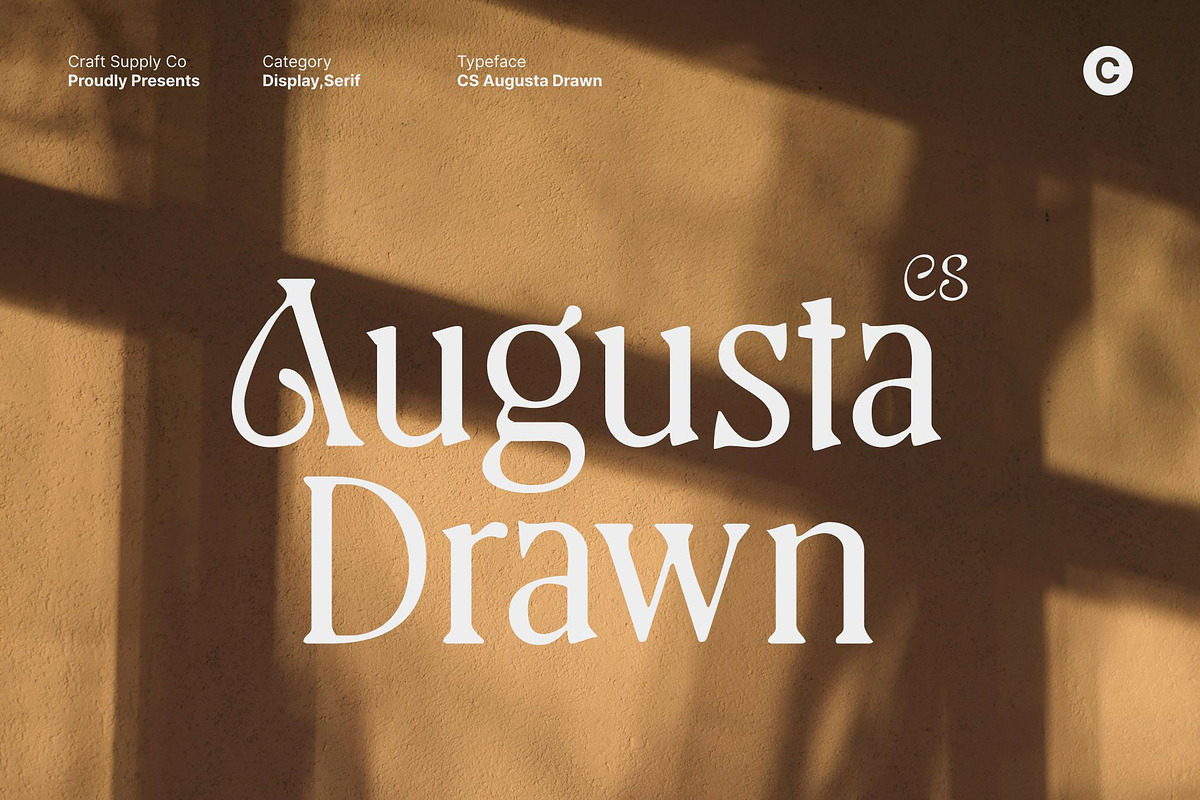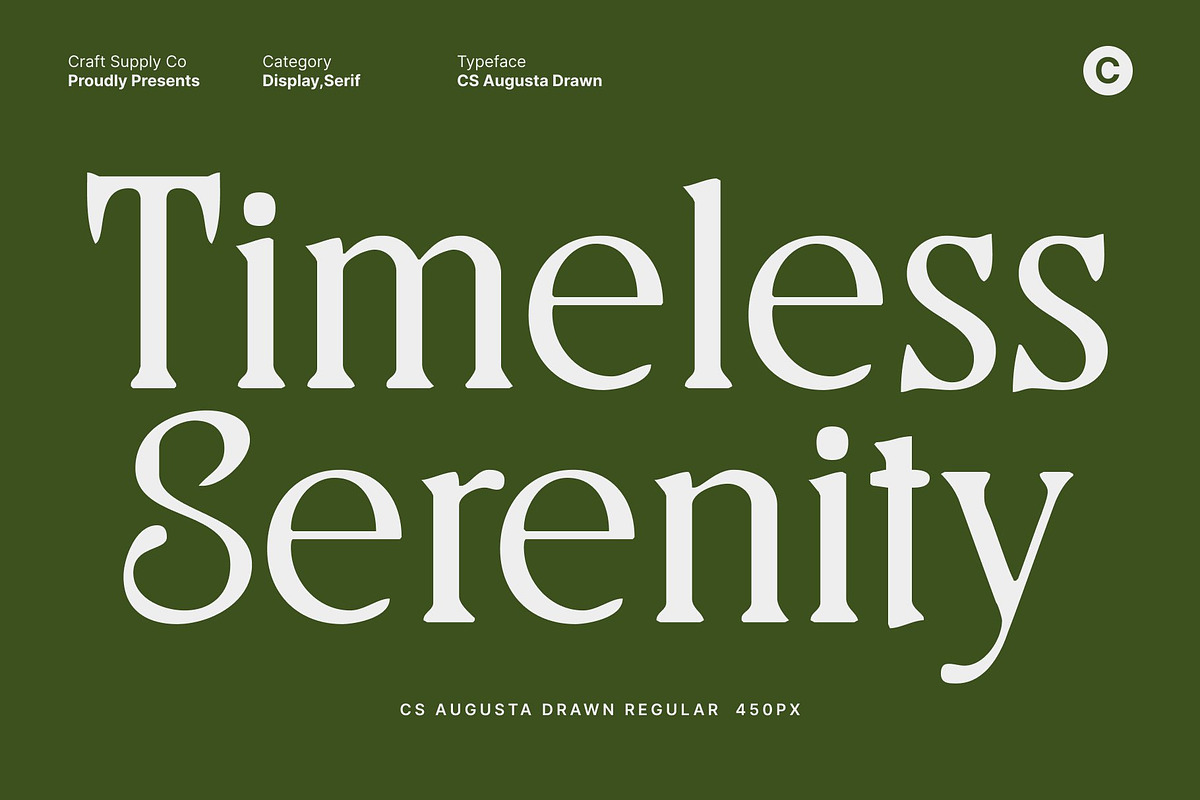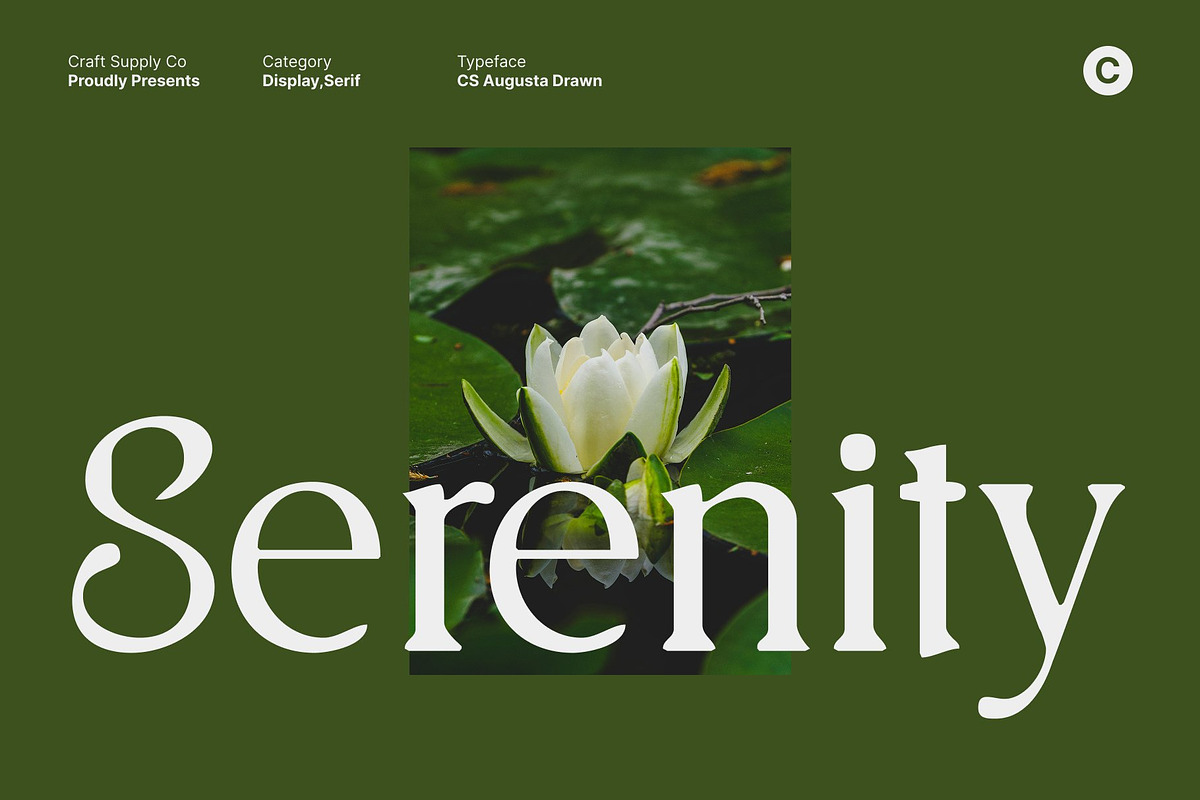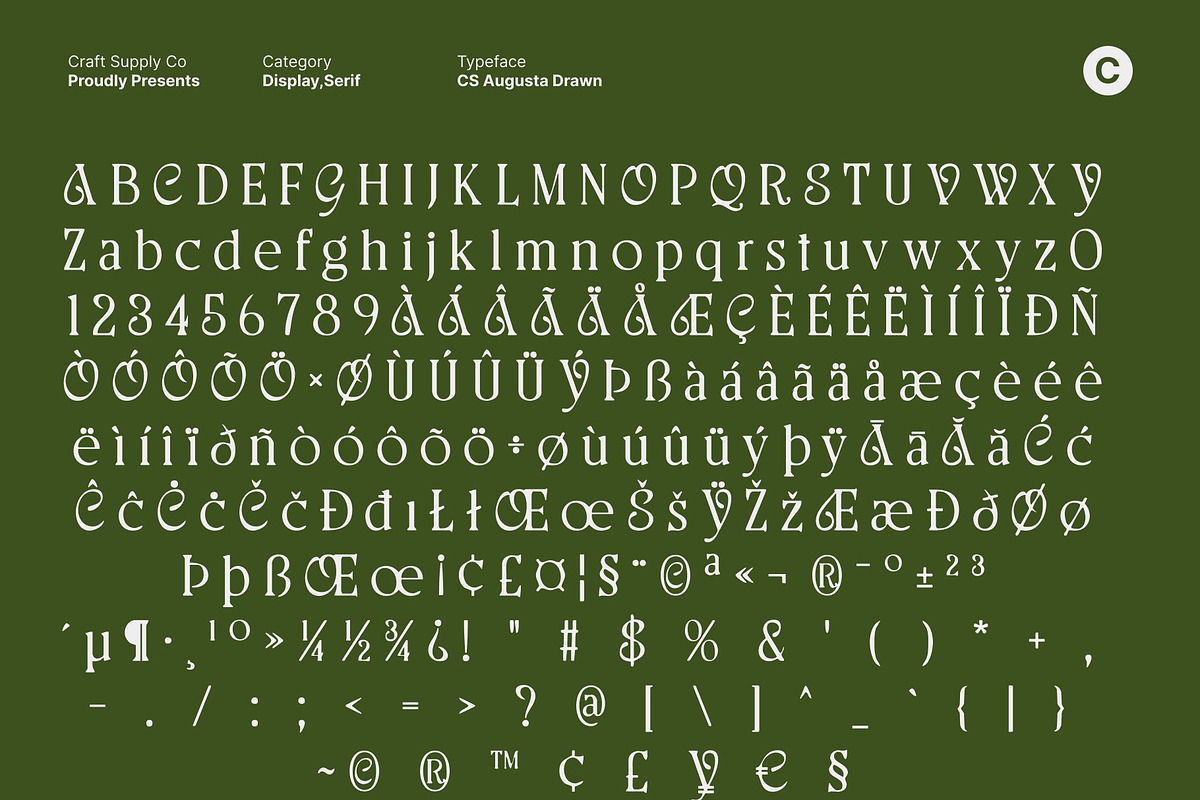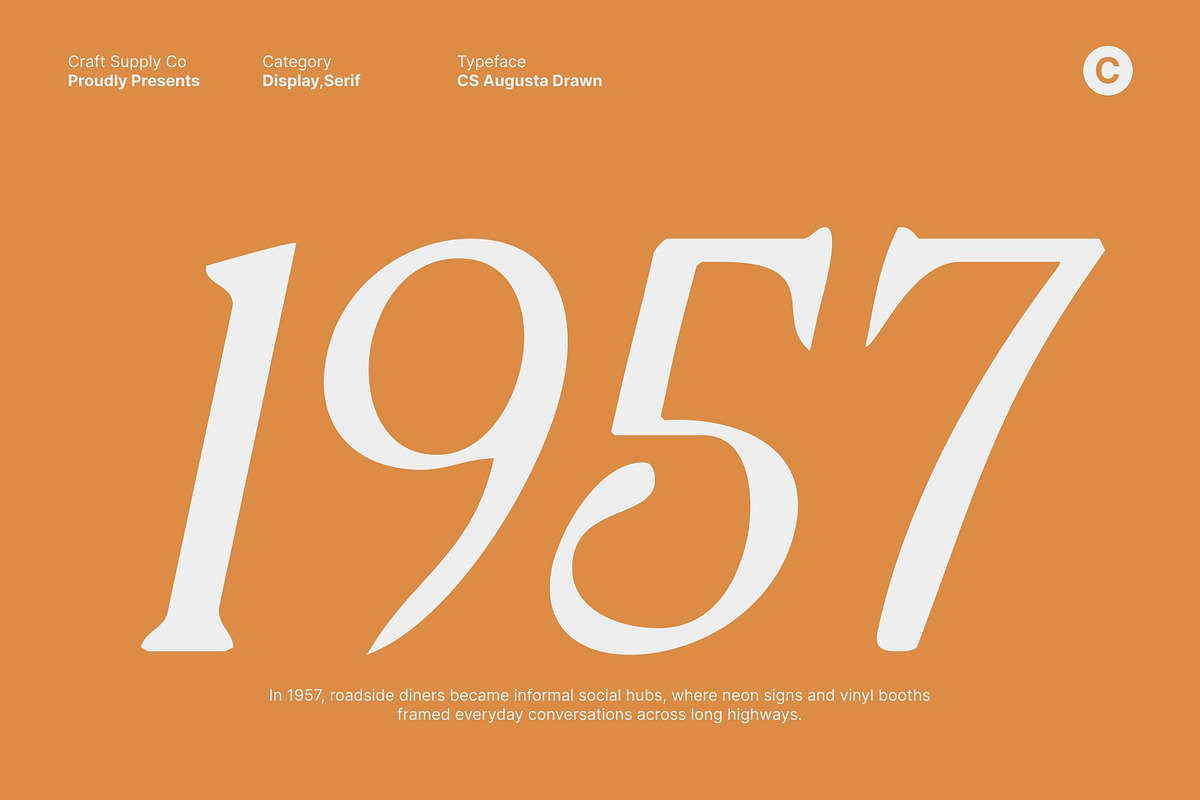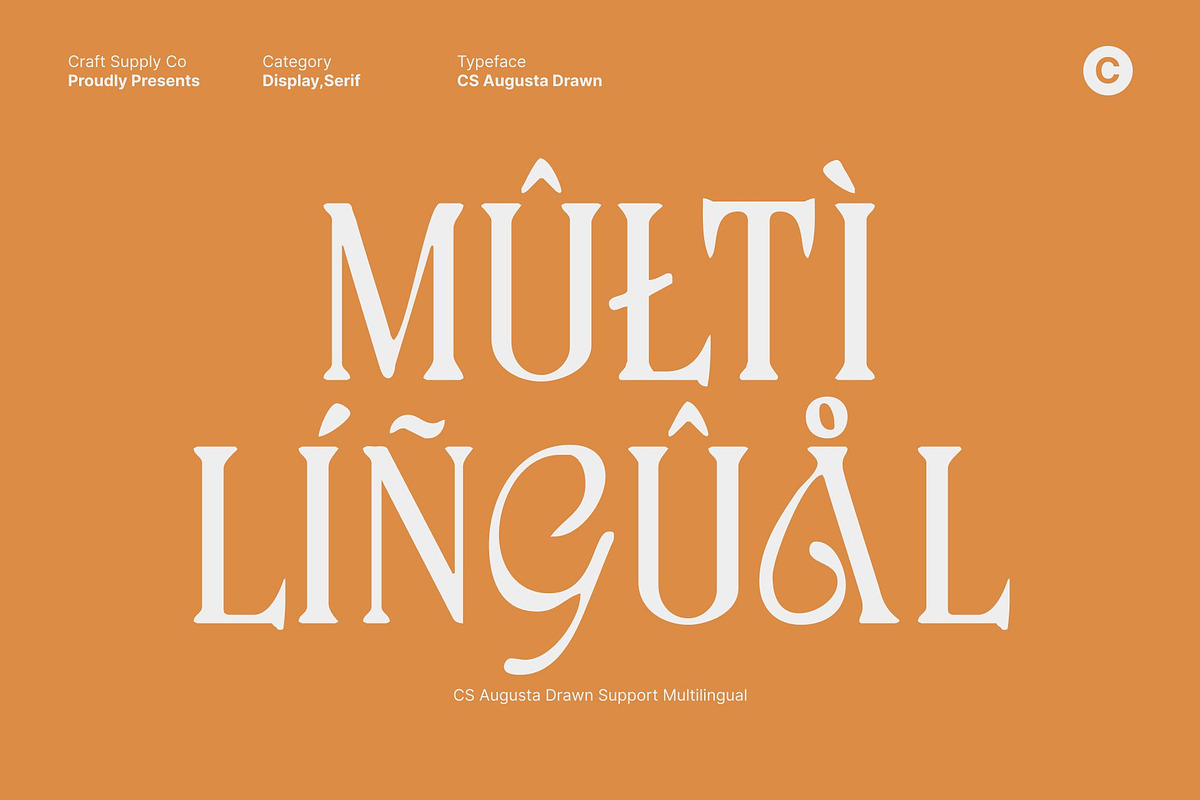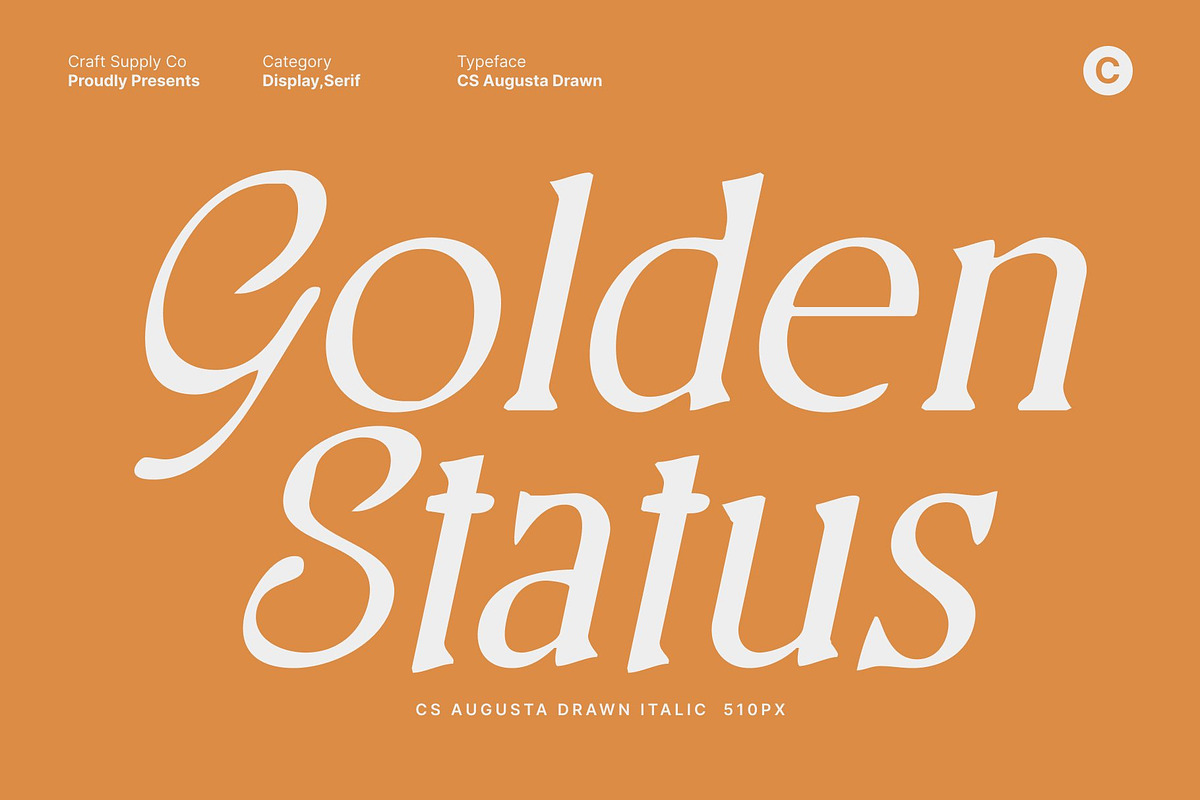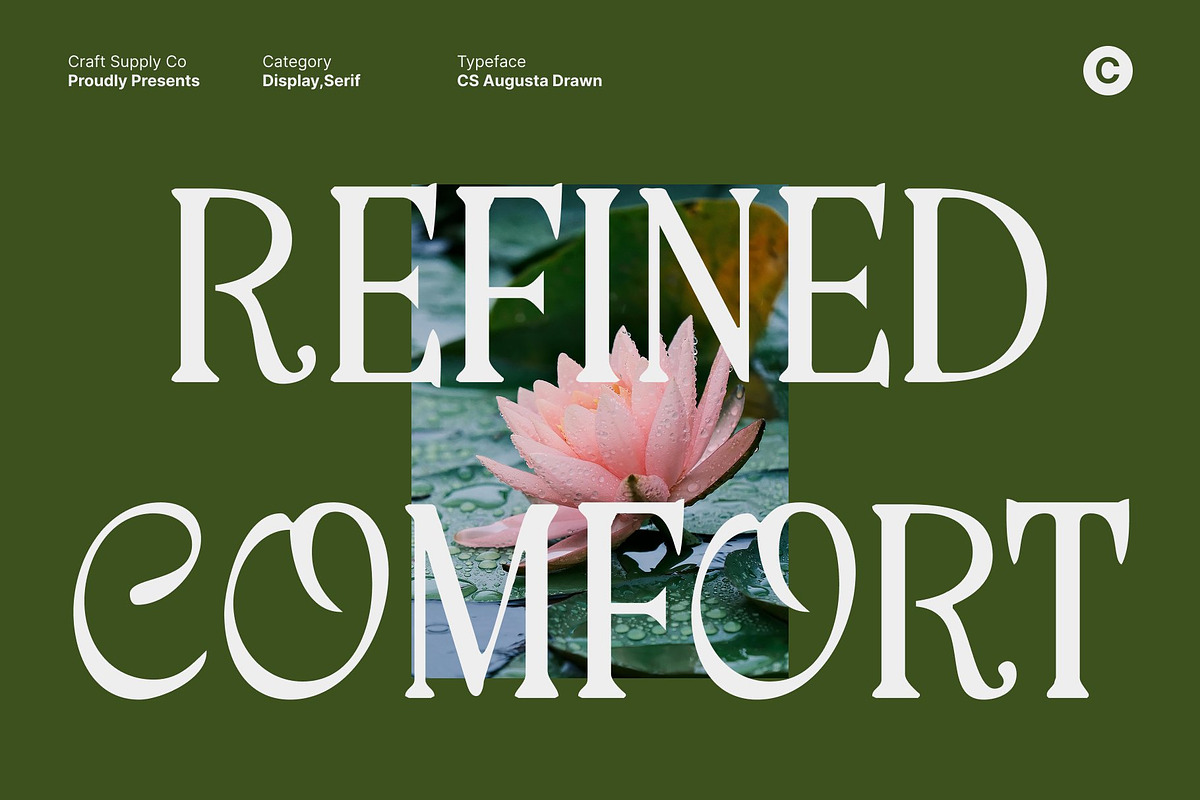
CS Augusta Drawn
CS Augusta Drawn – Elegant Serif with Luxurious, Feminine Grace
Luxurious Serif with Hand-Drawn Refinement This is an elegant serif font defined by smooth, flowing curves and delicately refined details. Its graceful letterforms create a luxurious visual presence that feels polished, feminine, and timeless. The drawn texture adds a soft handcrafted nuance, enhancing its warmth and sophistication without diminishing clarity.
Sophisticated Shapes for Elevated Readability Carefully balanced proportions and smooth serifs give this font excellent readability while maintaining an upscale tone. Each character is thoughtfully shaped to flow naturally across the page, making long-form text feel elegant and comfortable. This refined structure brings both beauty and professionalism to editorial layouts.
Perfect for Books, Editorials, and High-End Design This font excels in advanced book layouts, magazine titles, and editorial design where elegance and consistency matter. Its refined aesthetic elevates long-form reading experiences, ensuring each page feels curated, luxurious, and visually cohesive.
Ideal for Packaging and Feminine Branding Beyond editorial use, this font brings sophisticated charm to packaging, logos, and brand identities. Its soft, feminine elegance makes it an excellent choice for beauty products, fashion labels, lifestyle brands, and premium goods that aim to communicate confidence, refinement, and modern luxury.